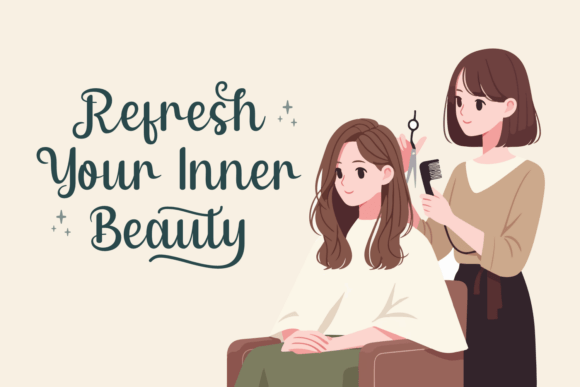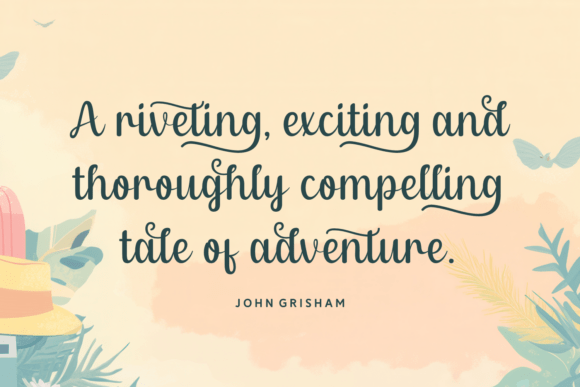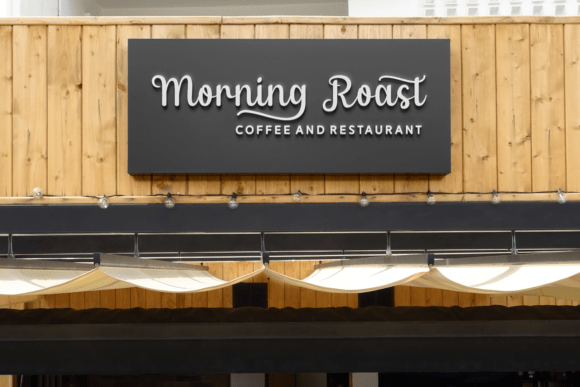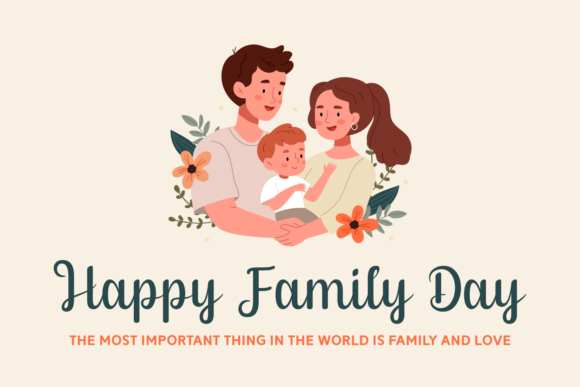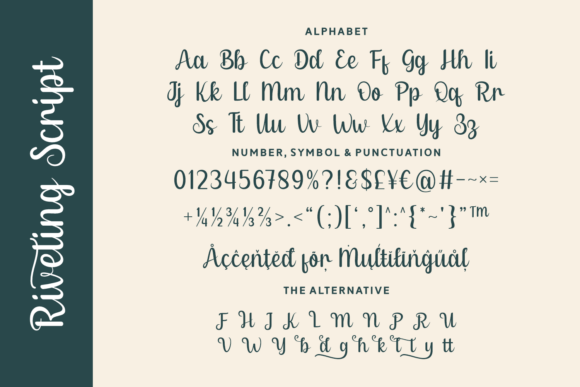
Introduction to Riveting Font
Riveting is a graceful script calligraphy font that blends classic elegance with modern simplicity.
With smooth curves, balanced strokes, and charming swashes, itโs ideal for invitations, feminine branding, product packaging, and lifestyle quotes Riveting adds a soft, handwritten sophistication to any design with ease and beauty.